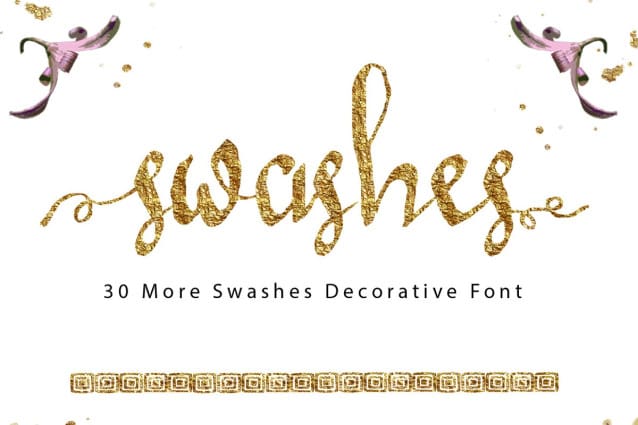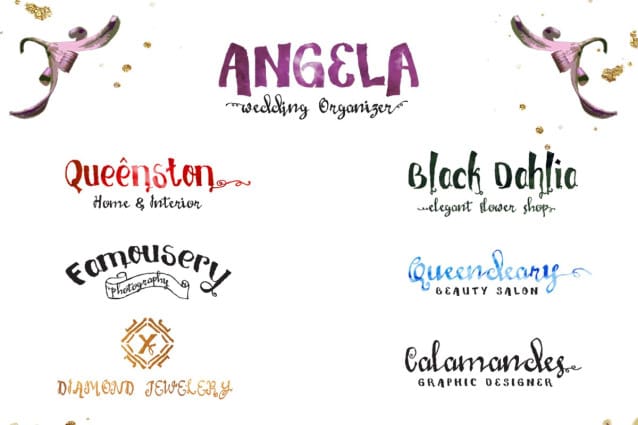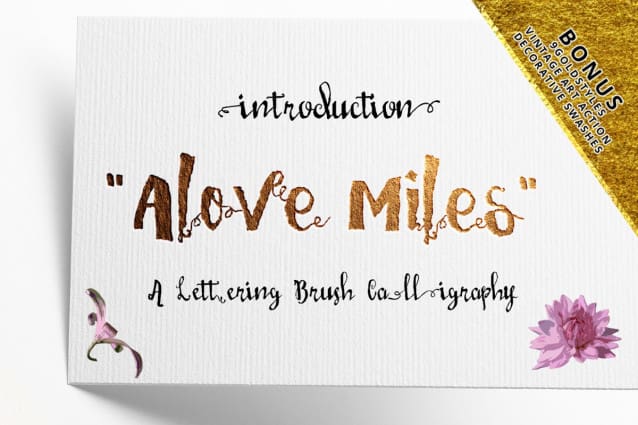
Love Miles Font
Love Miles Typeface. This font from Hand Made with Brush Paint, Suitable for design, element design, wedding, event, t-shirt, logo, badges, sticker, and awesome work, etc…